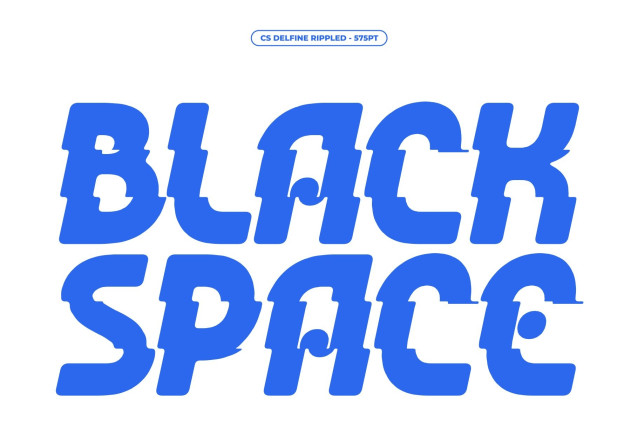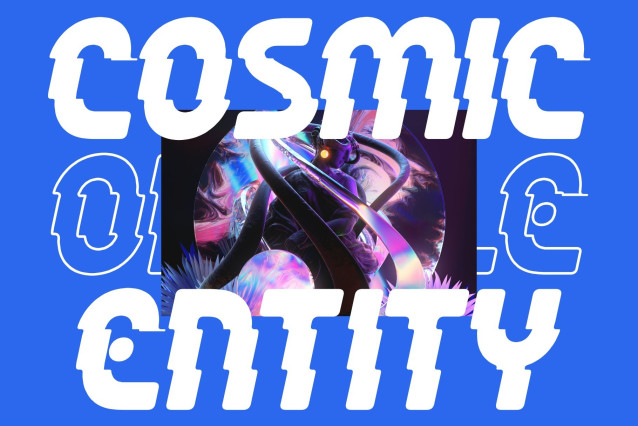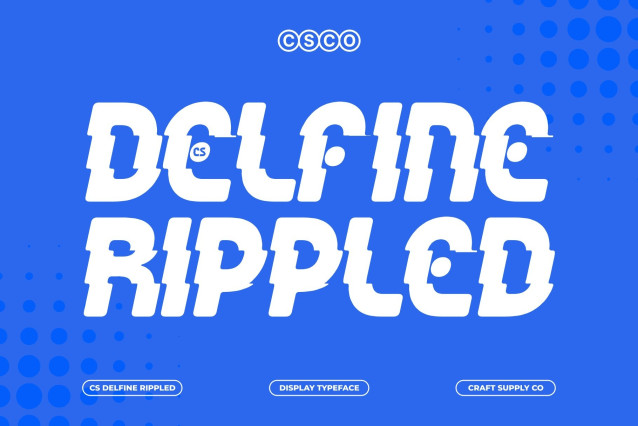
CS Delfine Rippled Font
CS Delfine Rippled – Bold Font:Energetic Flow with Liquid Rhythm
Striking Modern Sans-Serif Display Font
This is a modern sans-serif display font built to deliver maximum visual impact through bold, confident letterforms. Its strong geometric foundation creates an immediate sense of power and stability, making every word impossible to ignore. The clean modern construction is enhanced with expressive shaping, allowing the font to maintain clarity while still feeling dynamic and visually aggressive.
Funky and Lively Character
This font carries a vibrant and energetic personality that injects life into every composition. The playful rhythm within its forms creates a sense of movement, giving the typography a lively and expressive identity. This energetic flow makes the font feel spontaneous and fun, perfect for creative projects that aim to capture excitement and youthful energy. It performs especially well in visual storytelling where emotion, rhythm, and bold expression are essential elements.